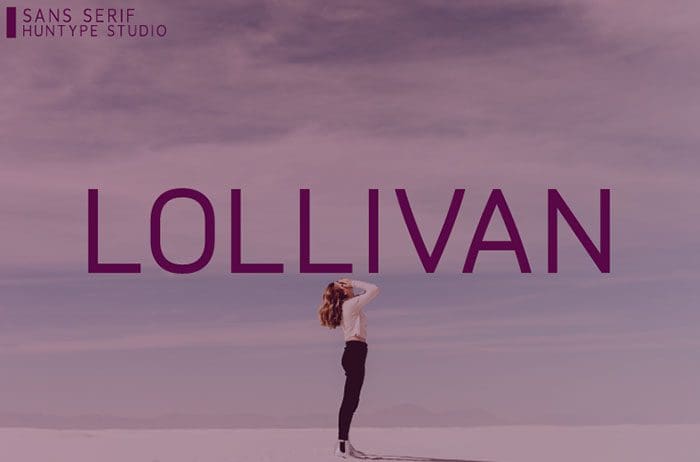
Lollivan is a fancy, contemporary sans serif font. Use it to add great personality to any design idea you can think of! Thanks to Mas Anis for sharing this font! Take a look at this portfolio for more of his stunning fonts.
Designed By : Mas Anis